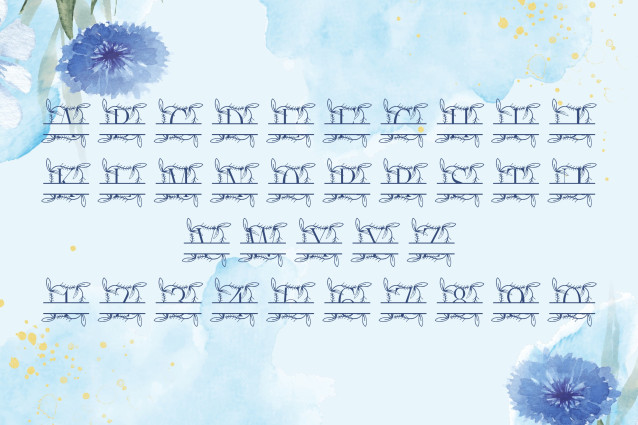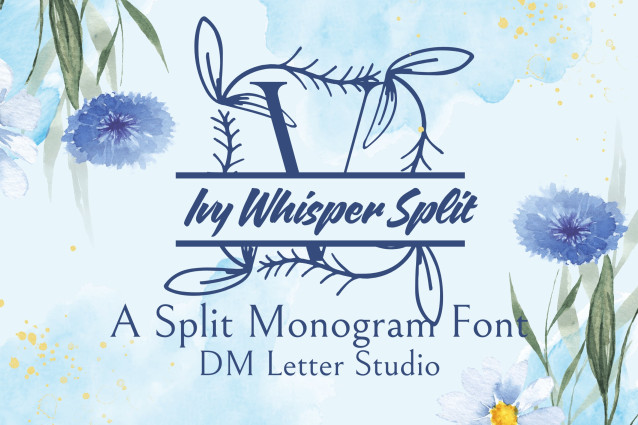
Ivy Whisper Split Monogram Font
Ivy Whisper Split Monogram is a sophisticated serif font featuring a classic split monogram style adorned with graceful ivy vines. Designed for customization, each uppercase letter is divided horizontally to allow names or text while leafy embellishments gently wrap around the form, creating a balance of structure and organic beauty. Ideal for weddings, luxury gifts, and monogram-themed decor.